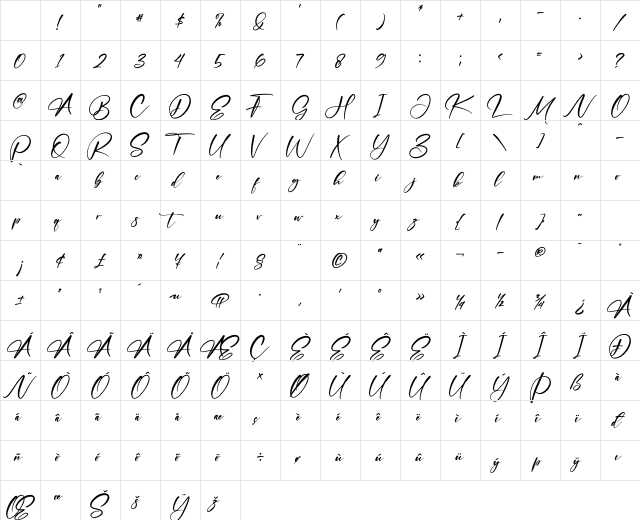
Complete Newlive Malldive Regular glyph index. Displaying only characters natively supported by Newlive Malldive Regular font.
Newlive Malldive is a composed and adaptable typeface that performs quietly and consistently across a wide range of design contexts.